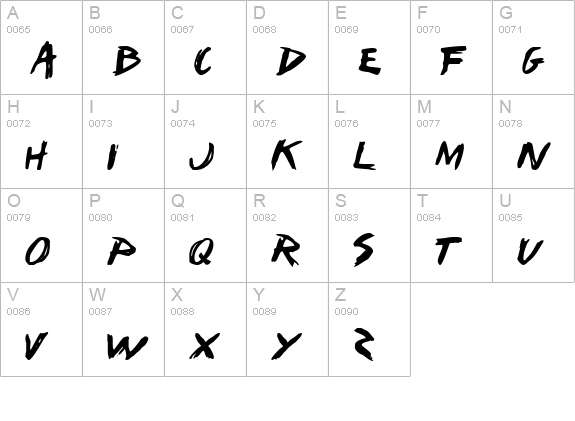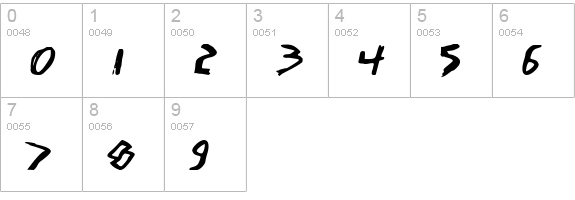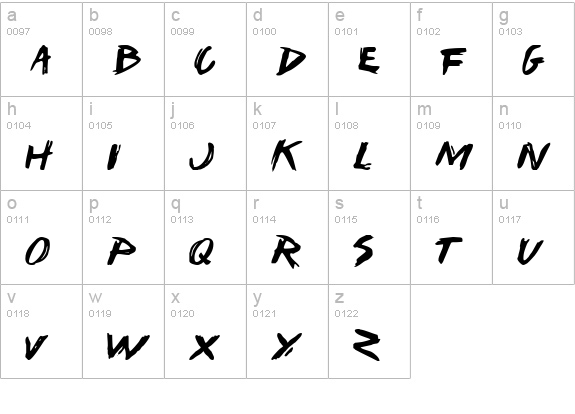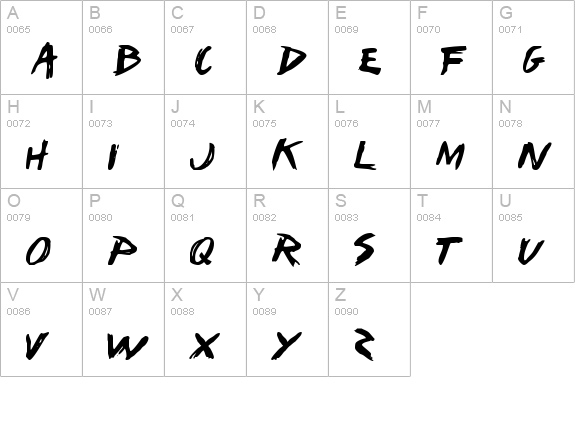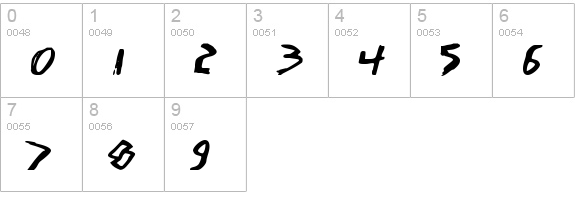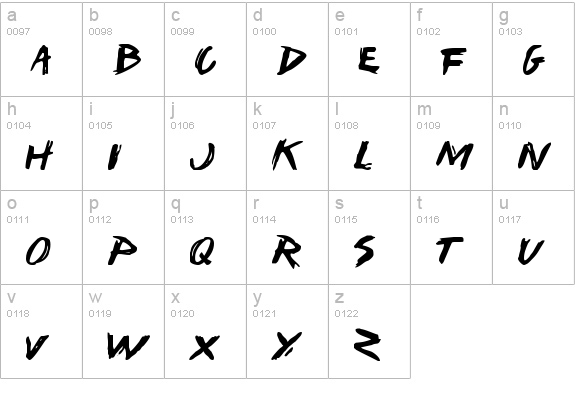
I Want My TTR! Font Details
Introducing the captivating and artistic I Want My TTR! font, a truly unique typeface that will add a touch of creativity and flair to any project. This font is the perfect choice for designers, artists, and anyone looking to make a bold statement with their typography. With its playful and dynamic letterforms, I Want My TTR! font captures the essence of youthful energy and exudes a sense of excitement and adventure. Each character is carefully crafted with intricate details, showcasing the designer's dedication to perfection. But what sets I Want My TTR! font apart from the rest is not just its impeccable design, but also its availability as a free download. That's right, this extraordinary font can be freely obtained at FontsMarket.com, making it accessible to everyone who wants to add a touch of magic to their designs. Whether you're working on a logo, a poster, a website, or any other creative project, I Want My TTR! font will instantly elevate your design to new heights. Its versatility allows it to be used in a variety of contexts, from playful and whimsical to bold and eye-catching. So why wait? Don't miss out on the opportunity to enhance your design arsenal with the captivating I Want My TTR! font. Download it for free today at FontsMarket.com and unleash your creativity like never before. Get ready to make a lasting impression with this stunning typeface that's as unique as you are.